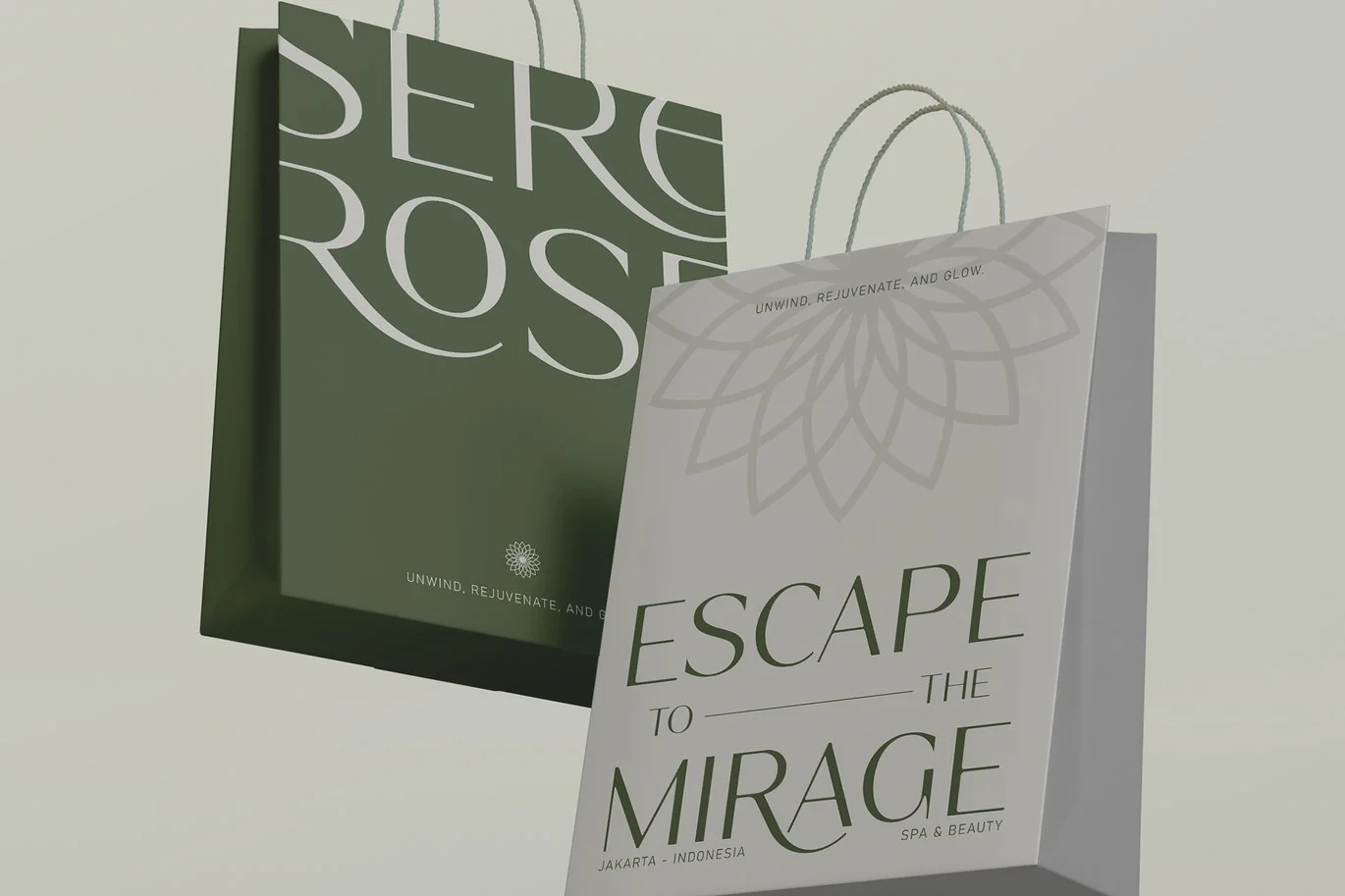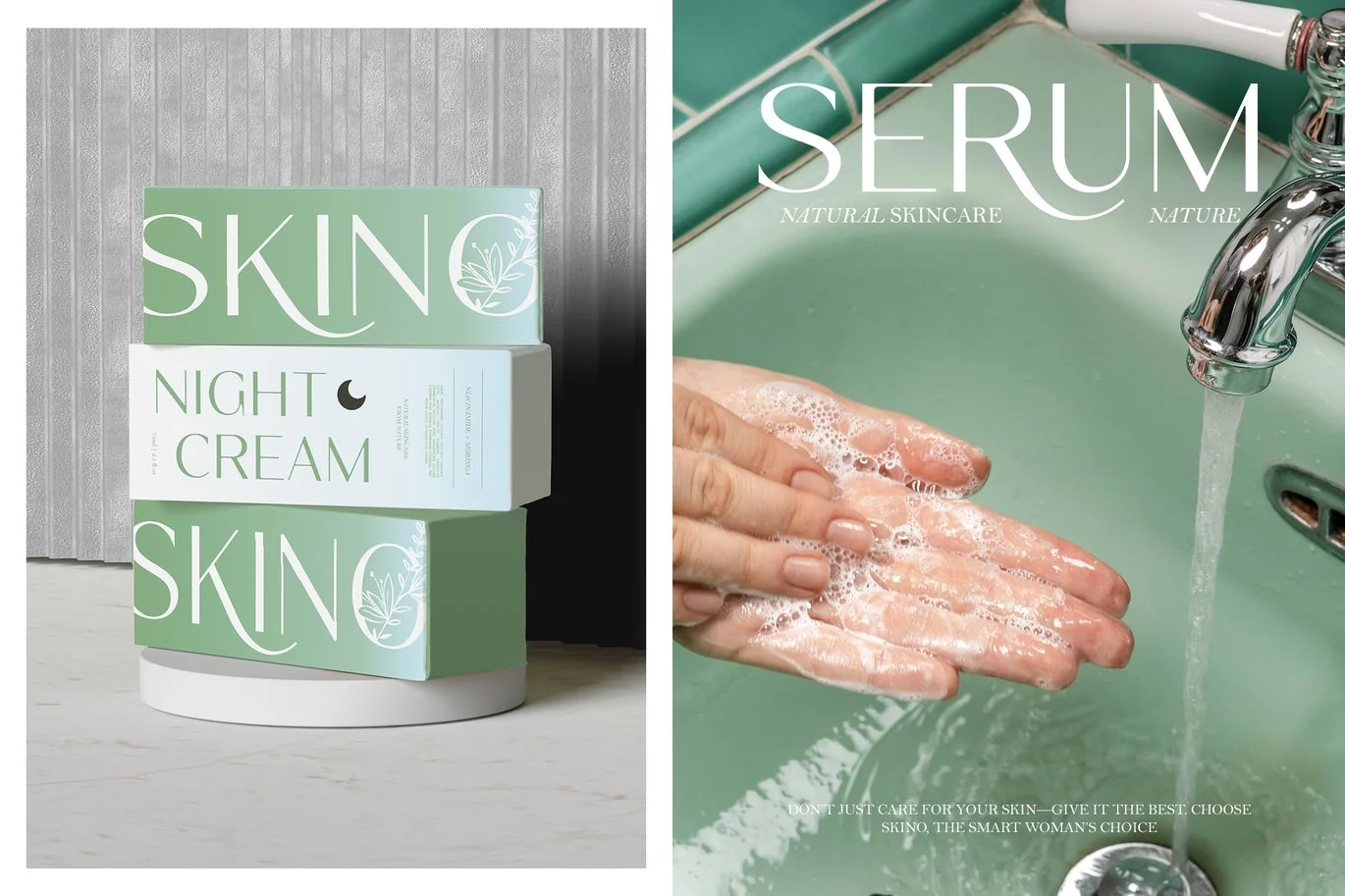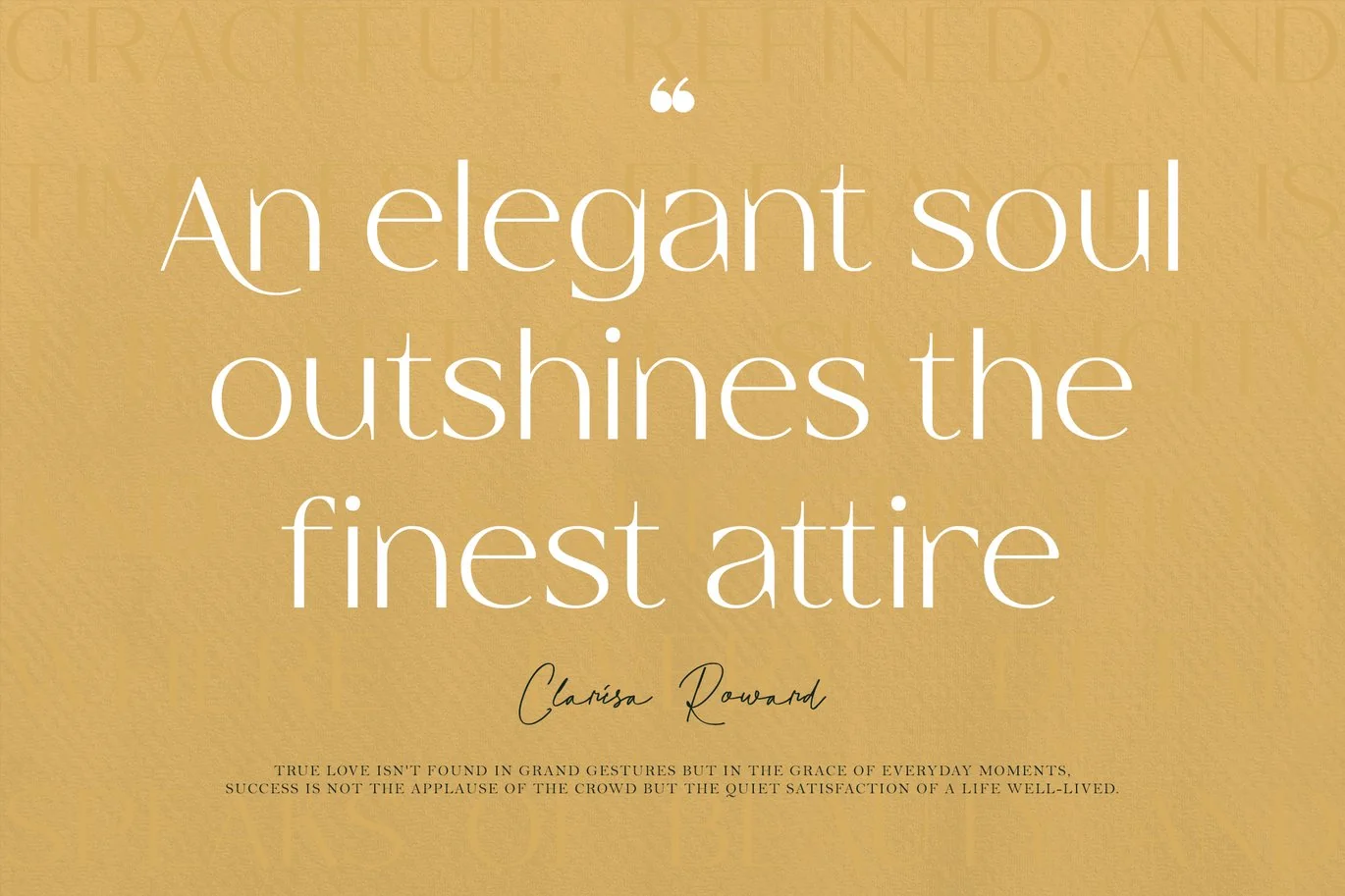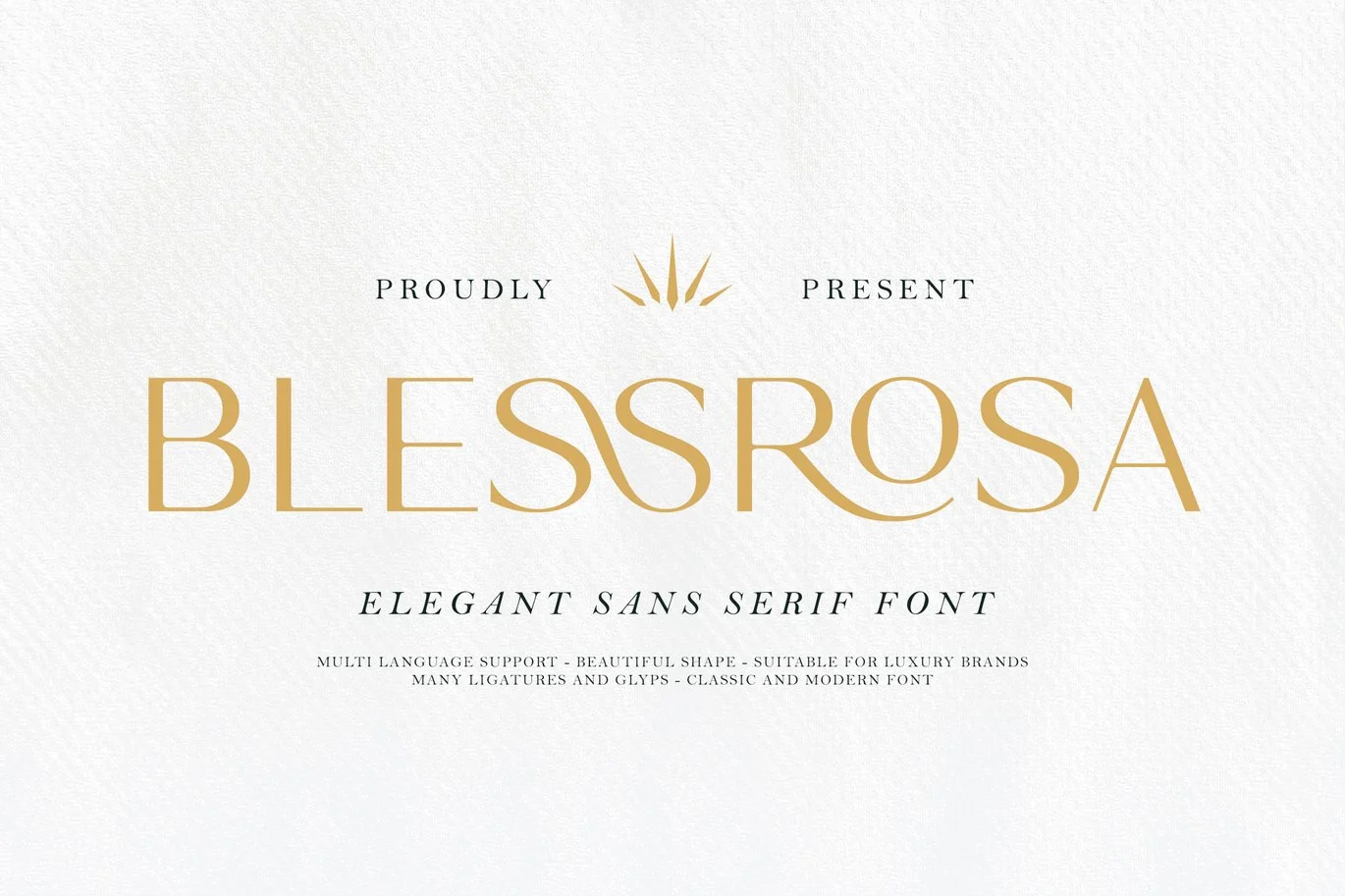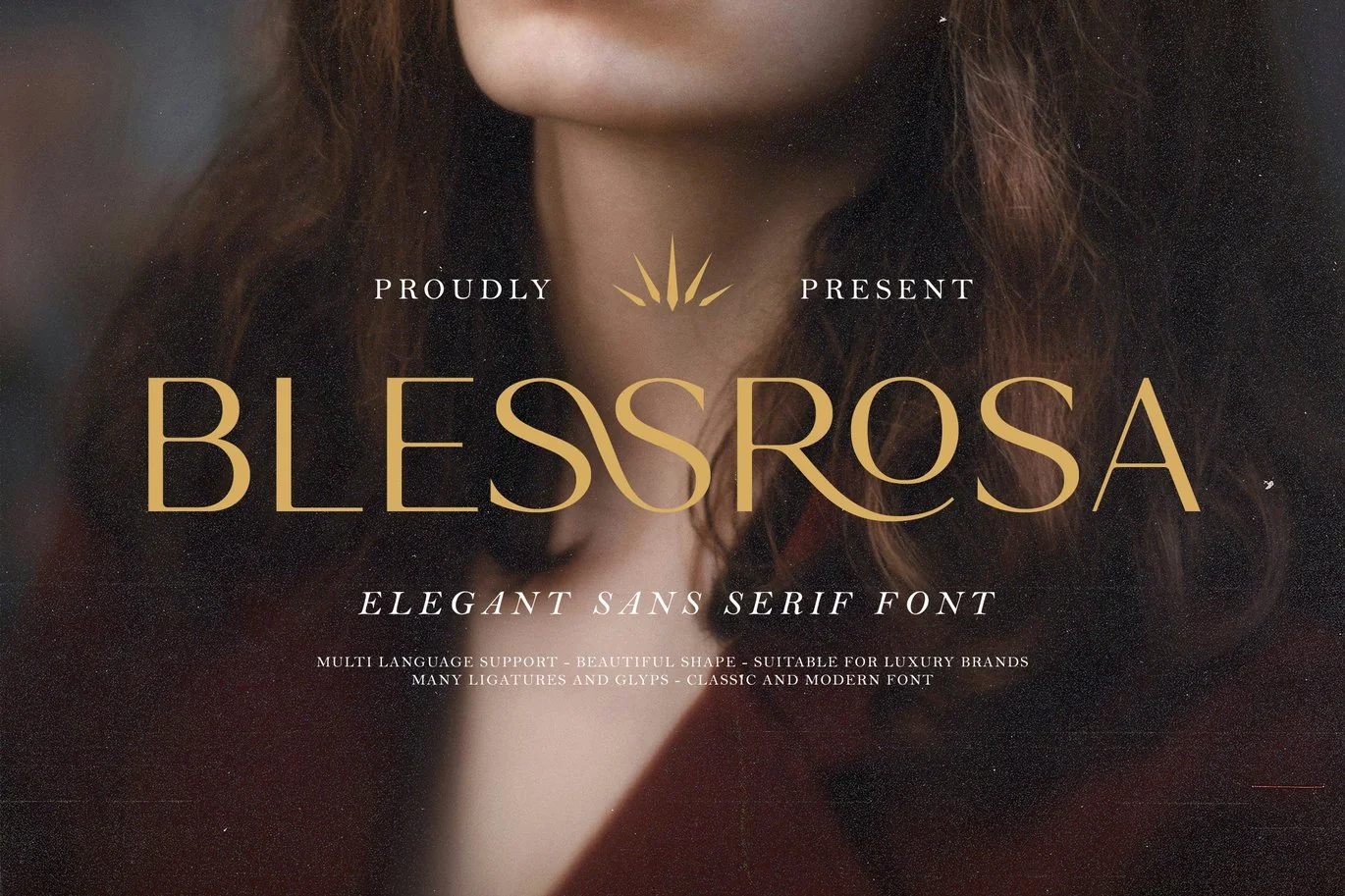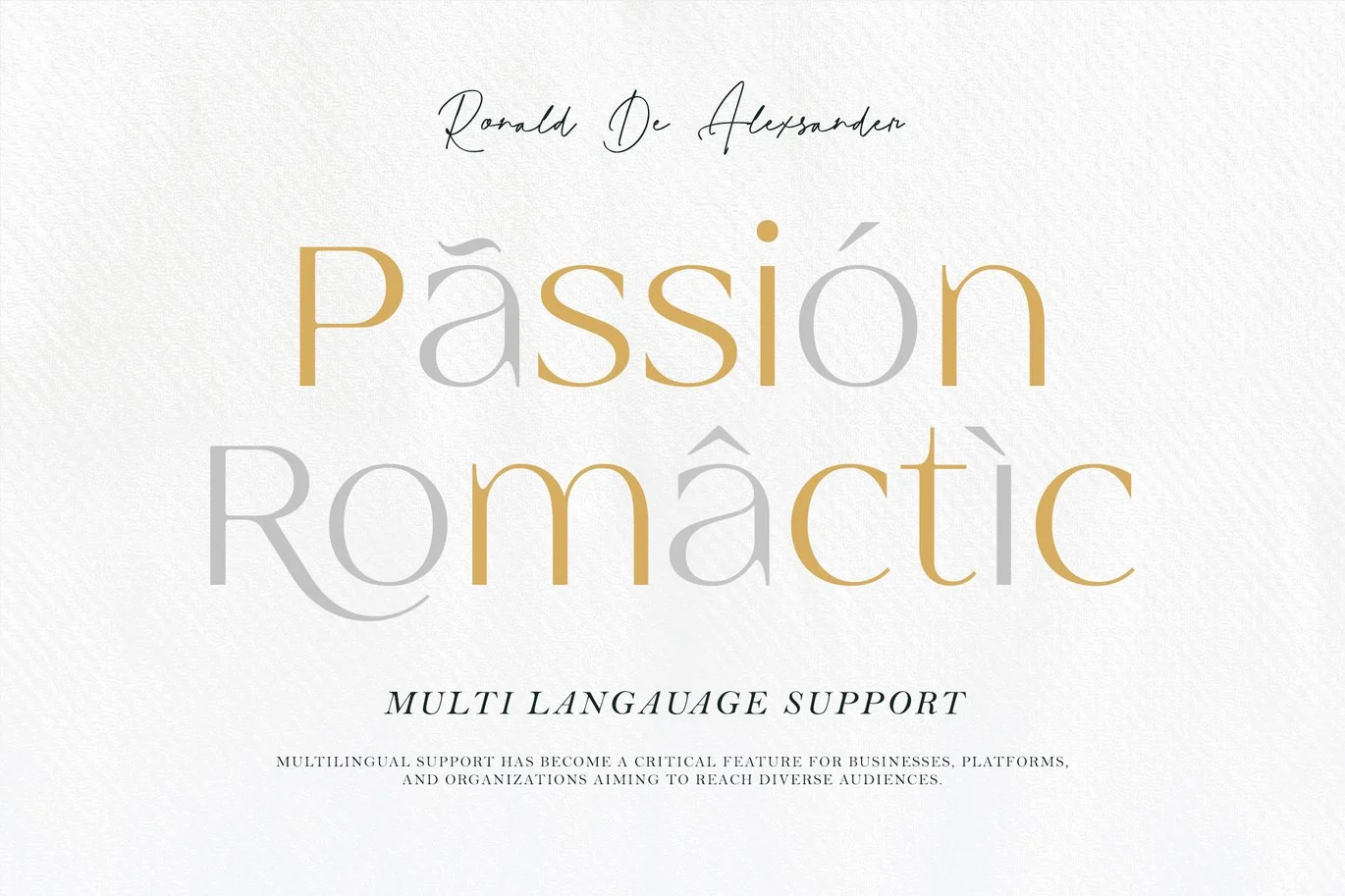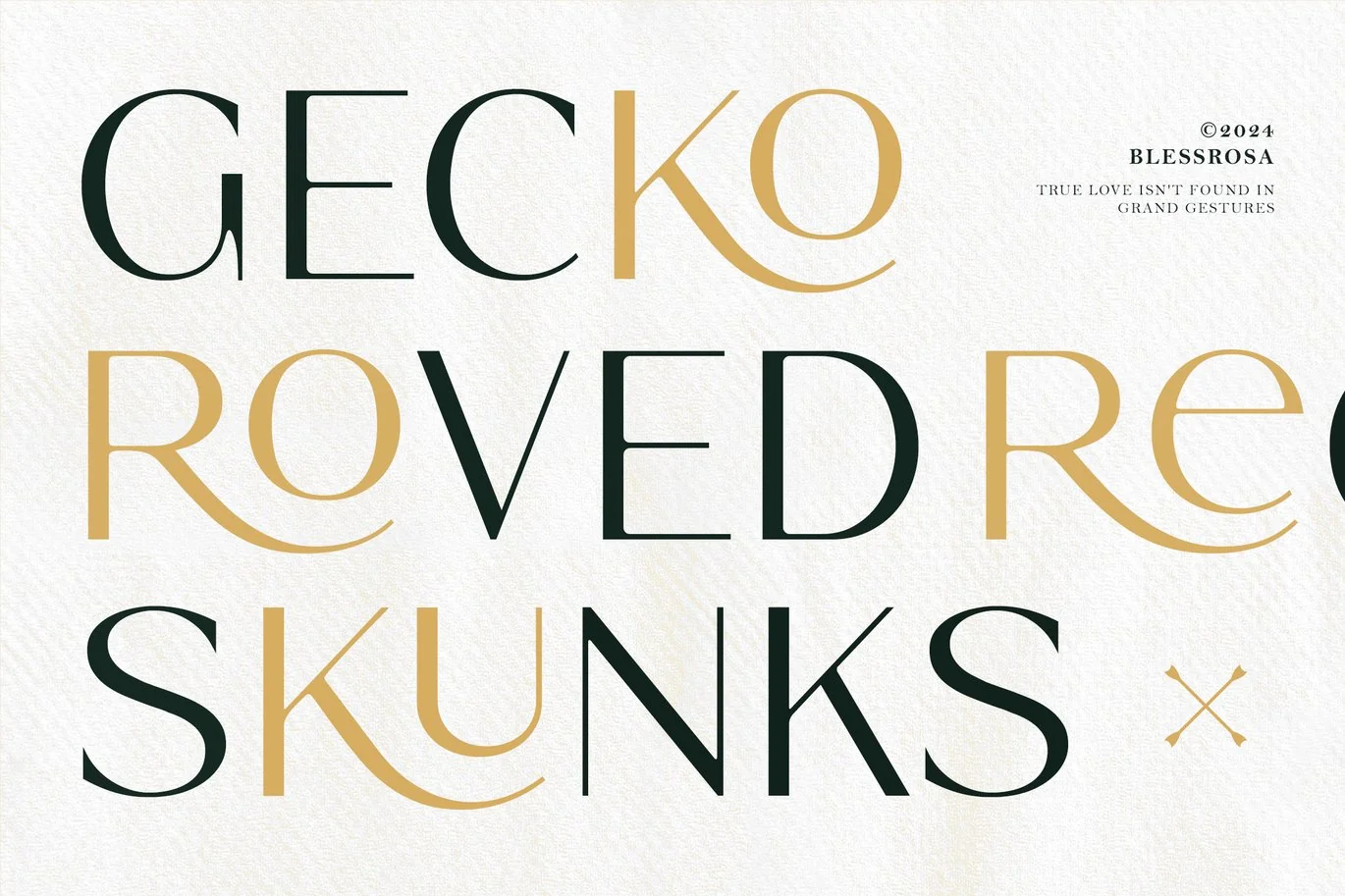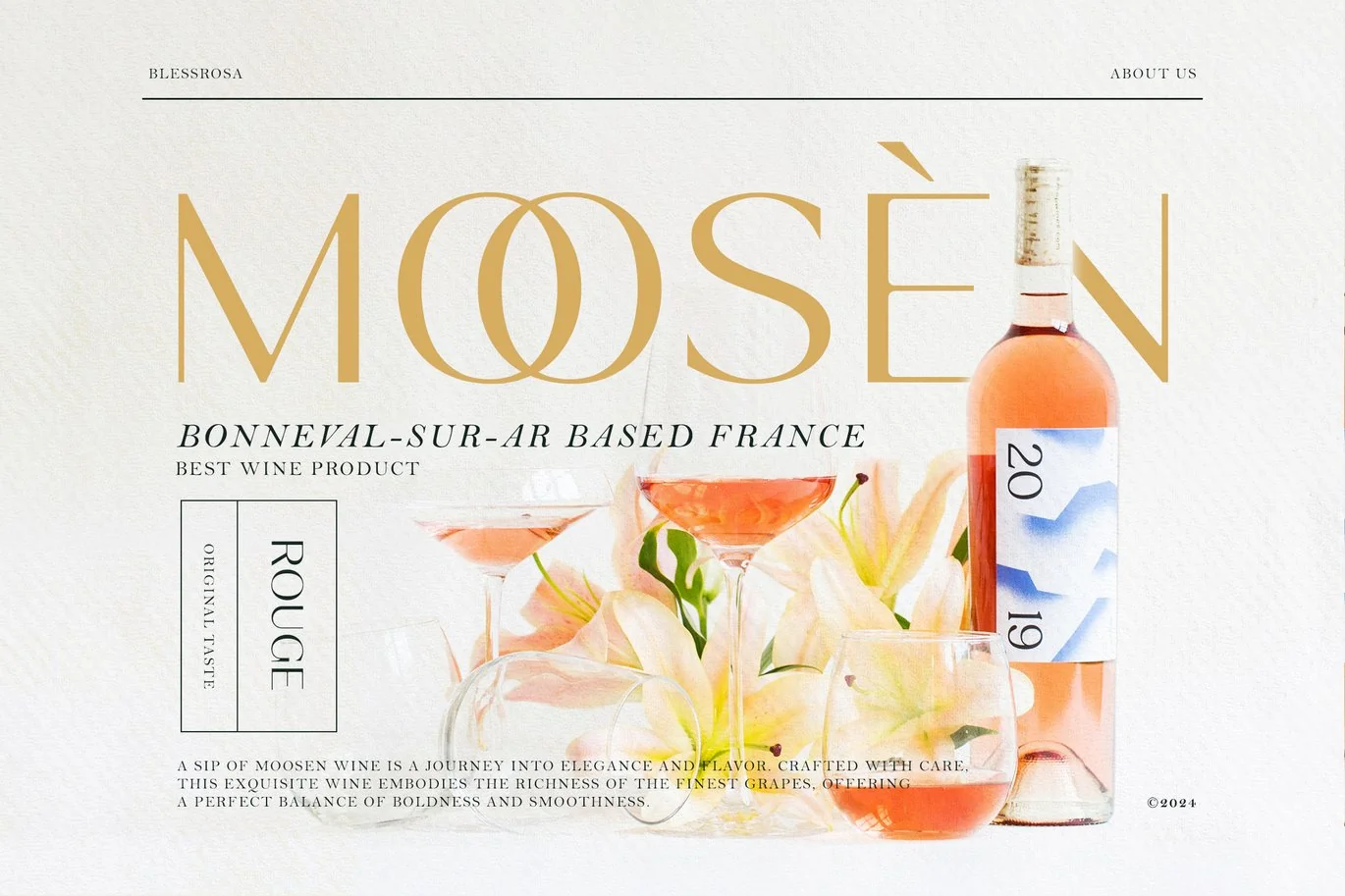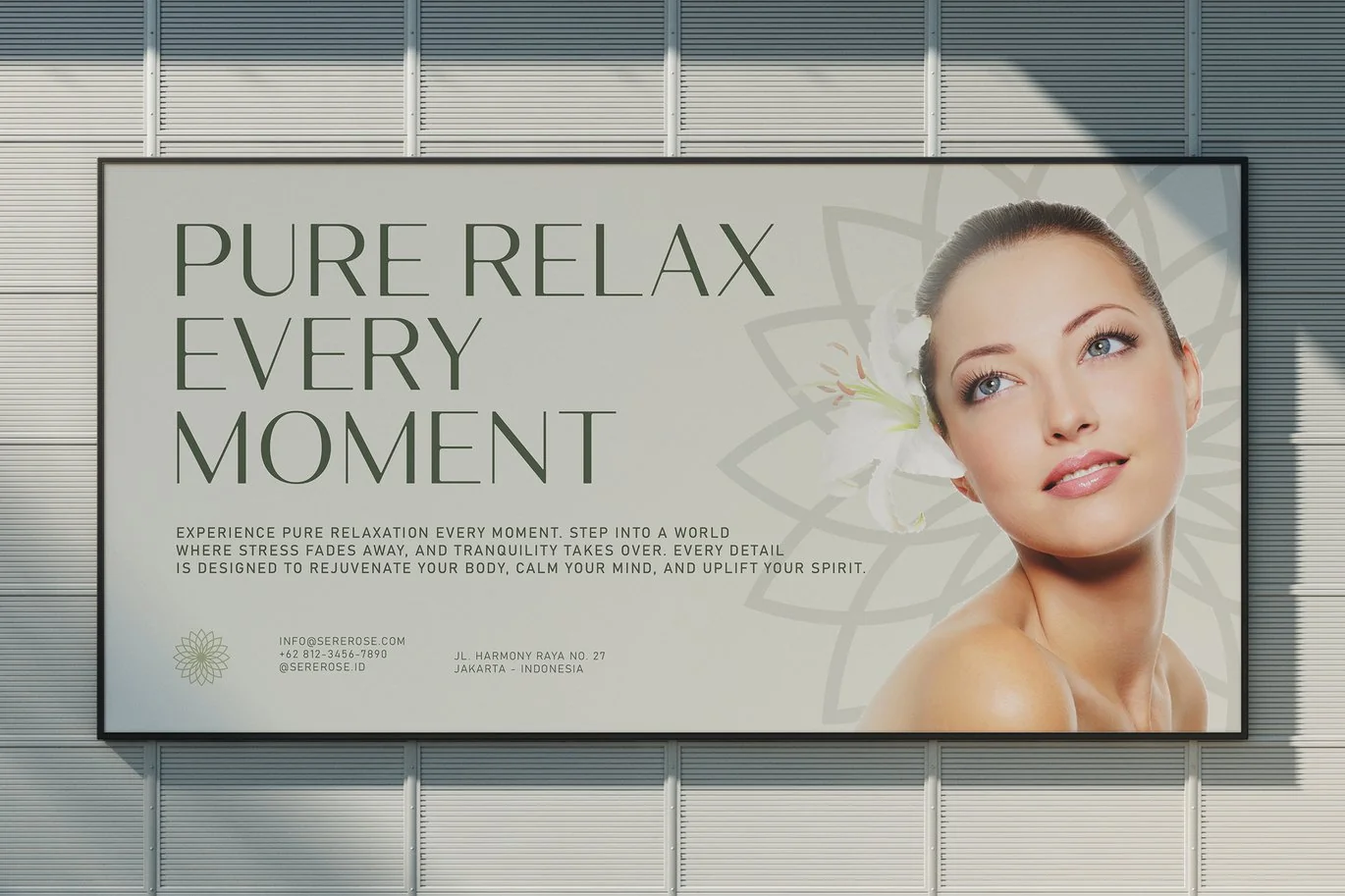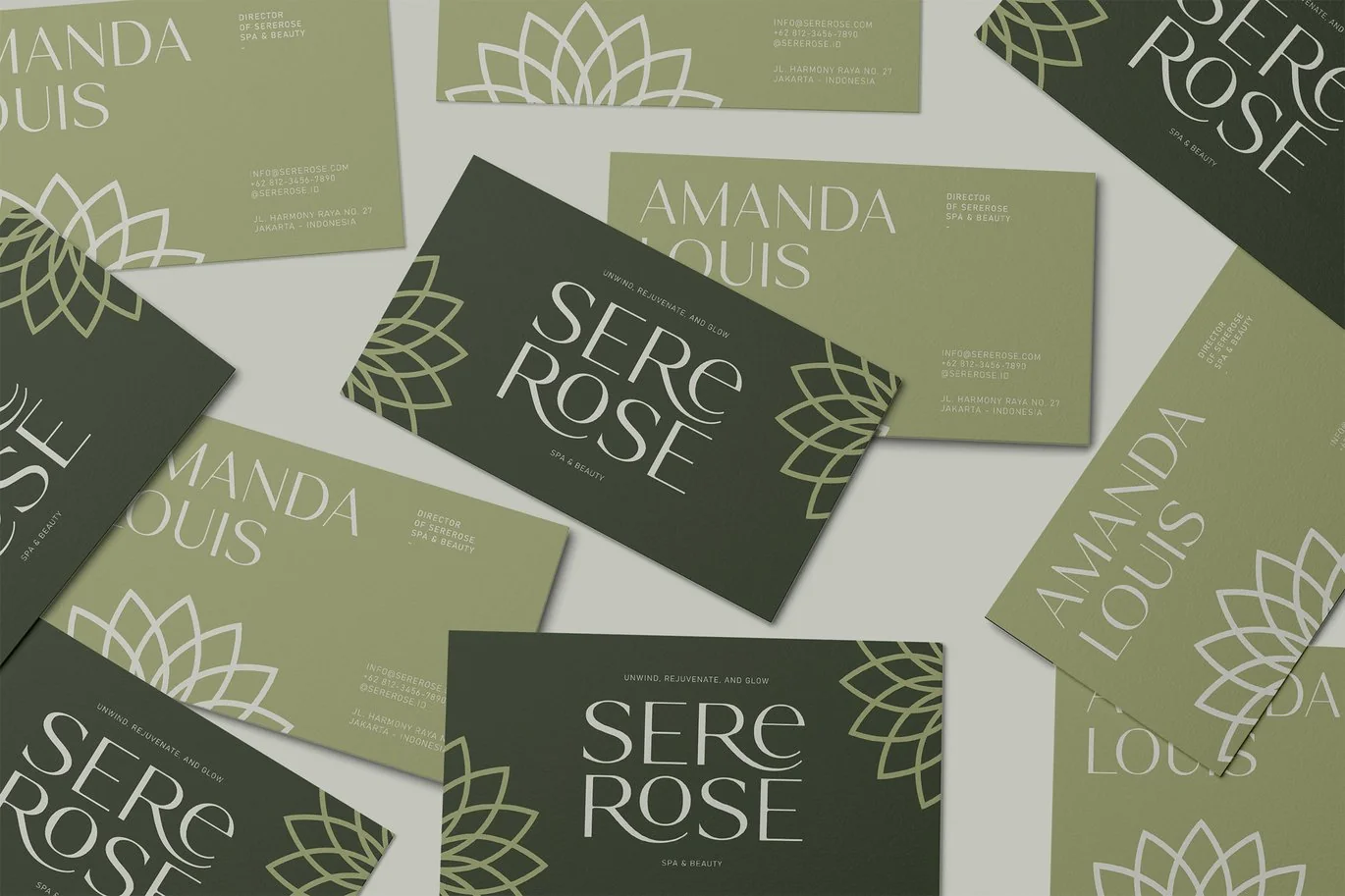
Blessrosa – Elegant Luxury Sans Serif Font
Blessrosa – Elegant Luxury Sans Serif Font – Modern Beauty Royal Display Font.
Blessrosa is an elegant Luxury sans serif font that combines clean lines with a refined and graceful design. Its royal yet beauty style makes it a perfect choice for projects that require a modern and creating luxurious timeless designs, such as high-end branding, beauty product packaging, luxury fashion editorials, minimalist logos, wedding invitations, chic social media content, advertising campaign, and anymore. Comes with a comprehensive set of uppercase and lowercase letters, punctuation, numerals, and a variety of ligatures and alternates for enhanced creativity. With multilingual support, this font ensures seamless communication with a global audience. Designed for creatives and professionals who value luxury, beauty, and elegance, Blessrosa offers the perfect balance of style and functionality. Its clean sans serif design ensures readability while adding a sophisticated edge to your designs.